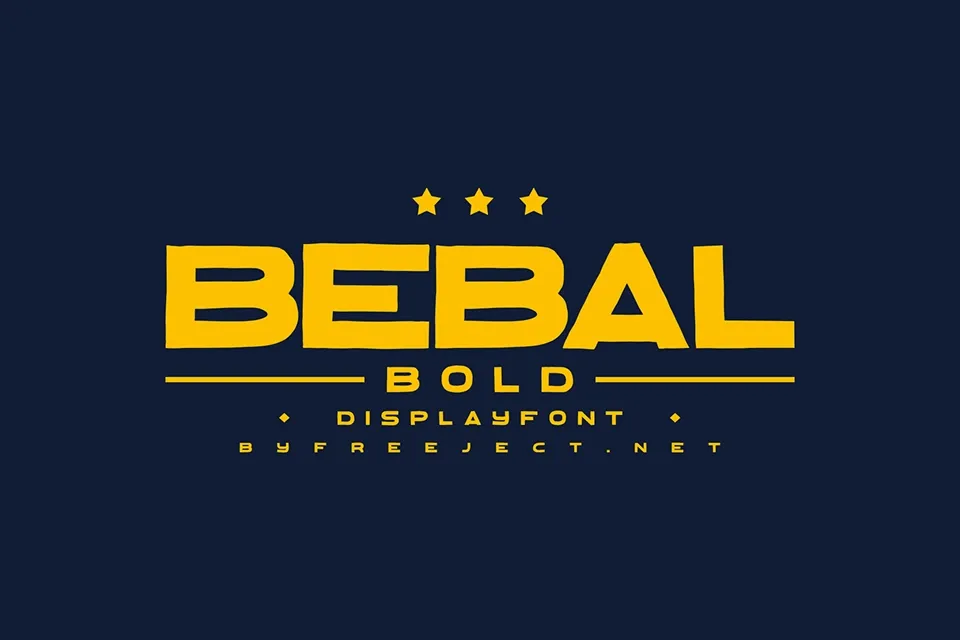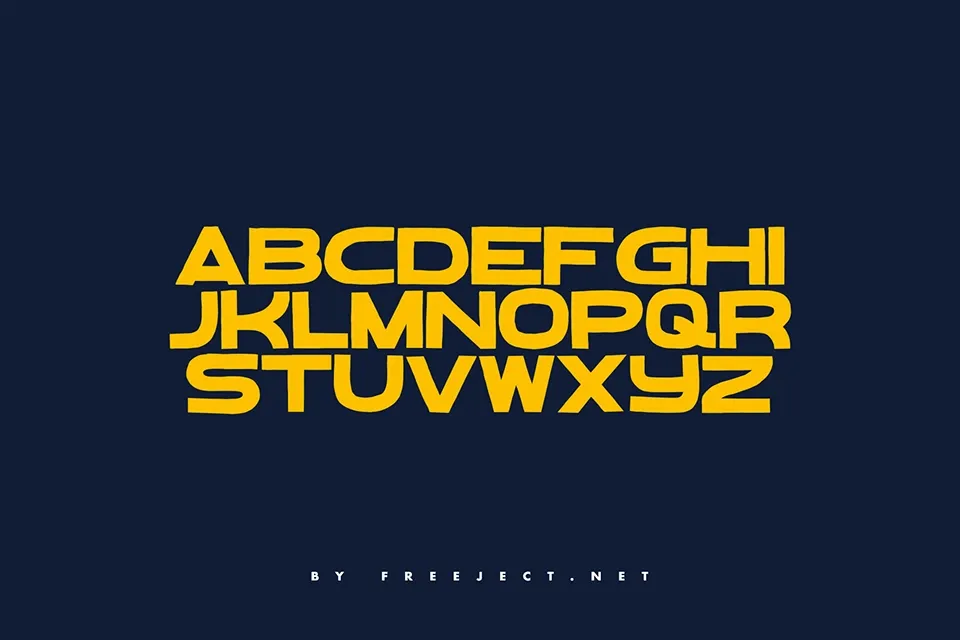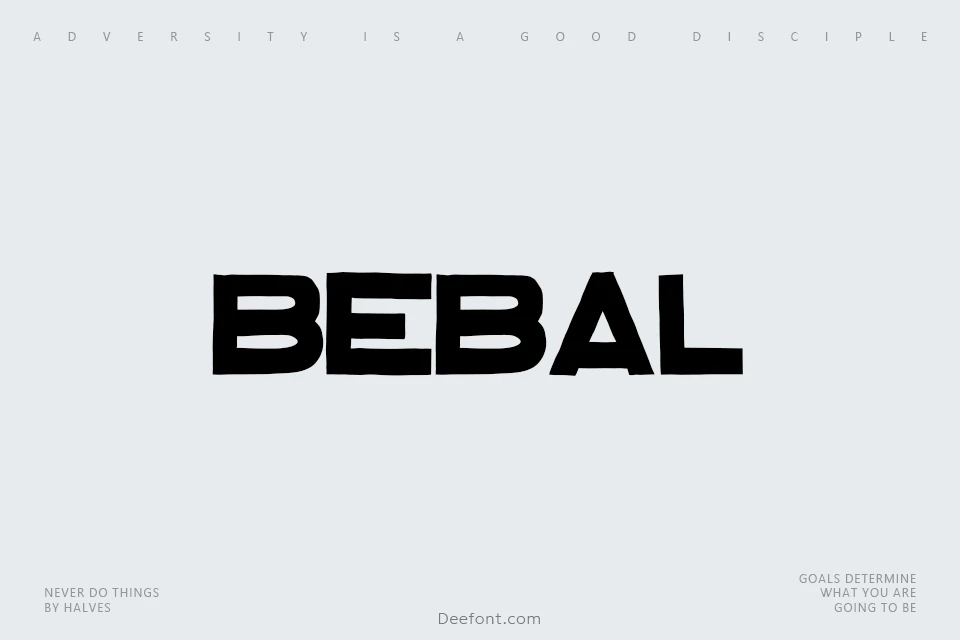
Bebal Bold Display Font
Bebal Bold Display Font is a commanding and impactful typeface designed to make a statement. This font features thick, blocky letterforms in an all-caps style, delivering a strong and solid visual presence. Its bold weight makes it ideal for headlines, posters, branding, and any design requiring maximum visibility and impact. Bebal Bold offers a contemporary, powerful aesthetic, perfect for grabbing attention in large formats. Its straightforward yet striking design ensures readability while conveying strength and confidence. Use Bebal Bold to give your projects a robust and unmissable look.